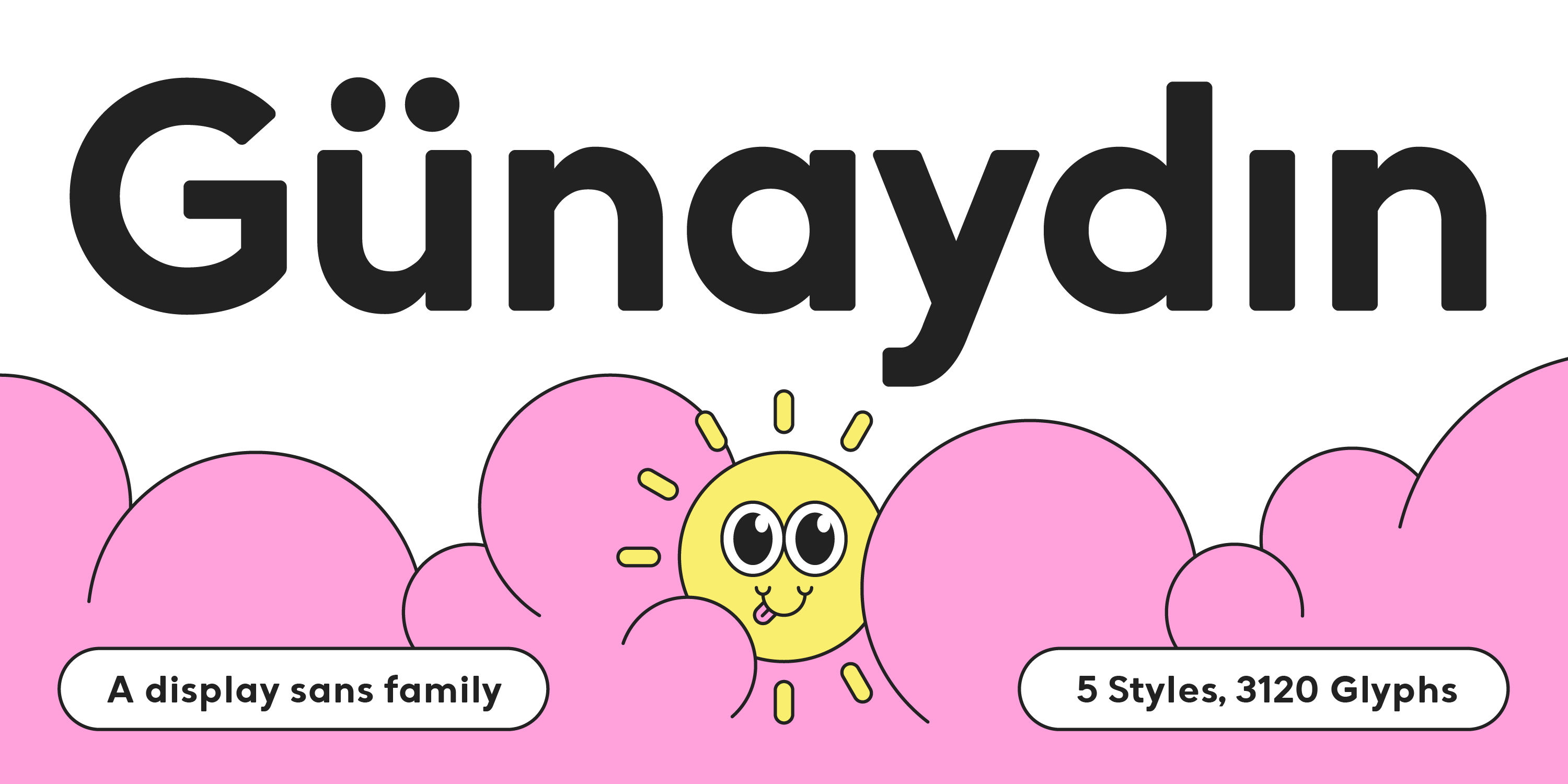
SK Gunaydin Font is perfect for morning show branding, breakfast cafe signage, sunrise yoga marketing, early morning radio graphics, daily newspaper headlines, morning routine products, sunrise photography projects, greeting card designs, cheerful lifestyle campaigns, and optimistic wellness communications.
What makes SK Gunaydin Font exciting is its radiant morning energy that perfectly captures the fresh optimism and hopeful spirit found in new beginnings and sunrise moments. This typeface features bright letterforms with dawn-inspired proportions and morning-fresh details that evoke the uplifting feeling of golden sunrise light and the positive energy that comes with each new day's possibilities. The font's cheerful personality and sunrise authenticity make it ideal for lifestyle brands seeking to convey hope, renewal, and the inspiring optimism that comes from embracing fresh starts and morning motivation.
SK Gunaydin Font family includes bright weight variations and morning-inspired alternatives that enhance its sunrise appeal while providing design flexibility for wellness and lifestyle applications. The font features dawn ligatures, sunrise-themed ornaments, and optimistic character variations that create authentic morning atmosphere for wellness and positive lifestyle branding.
Wellness companies and morning lifestyle brands consistently choose SK Gunaydin Font Free Download for projects requiring authentic sunrise appeal and positive energy credibility. The font's cheerful character excels in applications targeting early risers, wellness enthusiasts, and optimistic individuals who appreciate fresh starts and morning inspiration. Whether you're designing for breakfast brands, morning wellness programs, or positive lifestyle products, this uplifting typeface delivers the sunrise authenticity and morning optimism that resonates with audiences seeking genuine positivity and the inspiring energy that comes from greeting each new day with hope and enthusiasm.